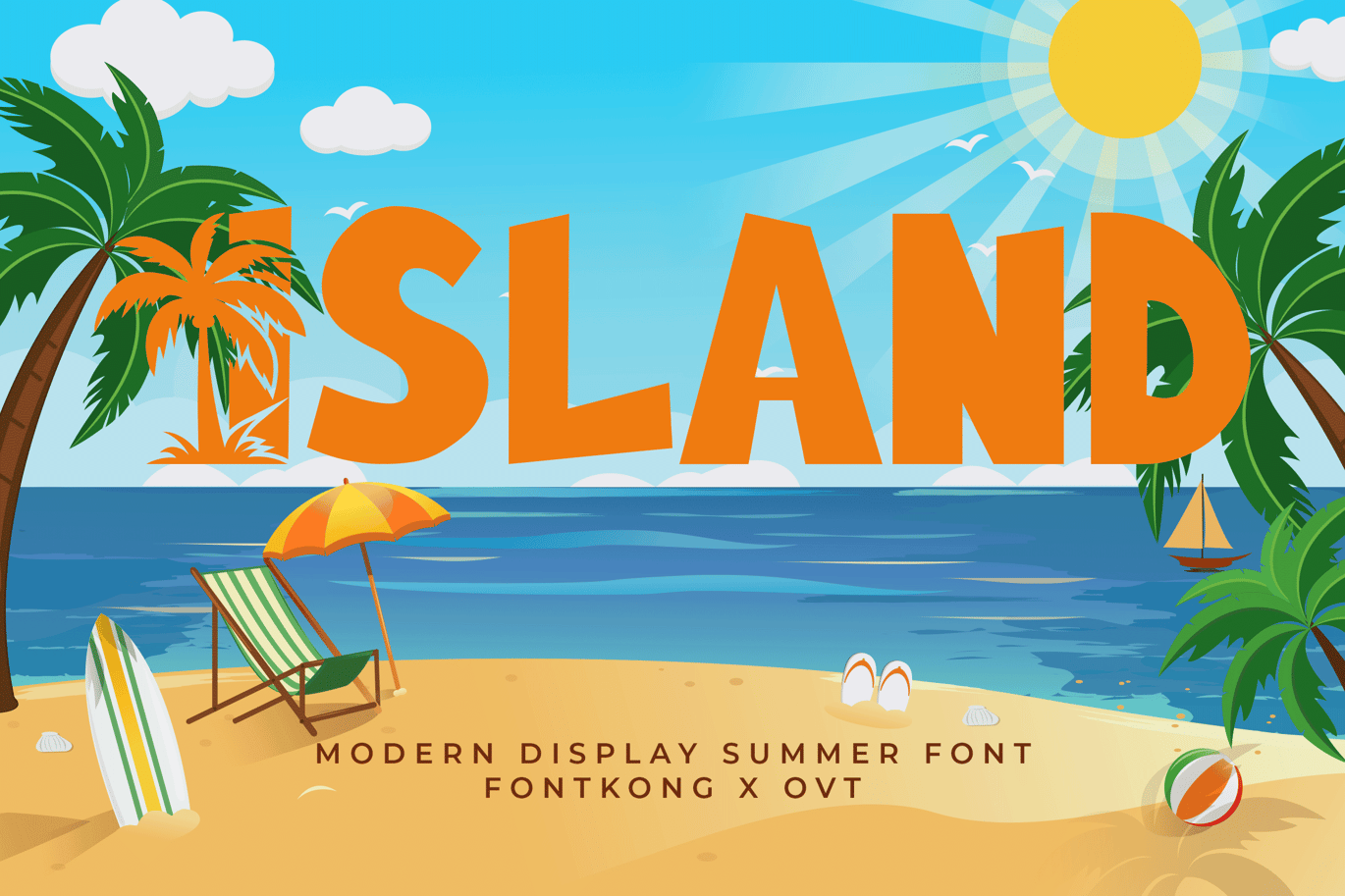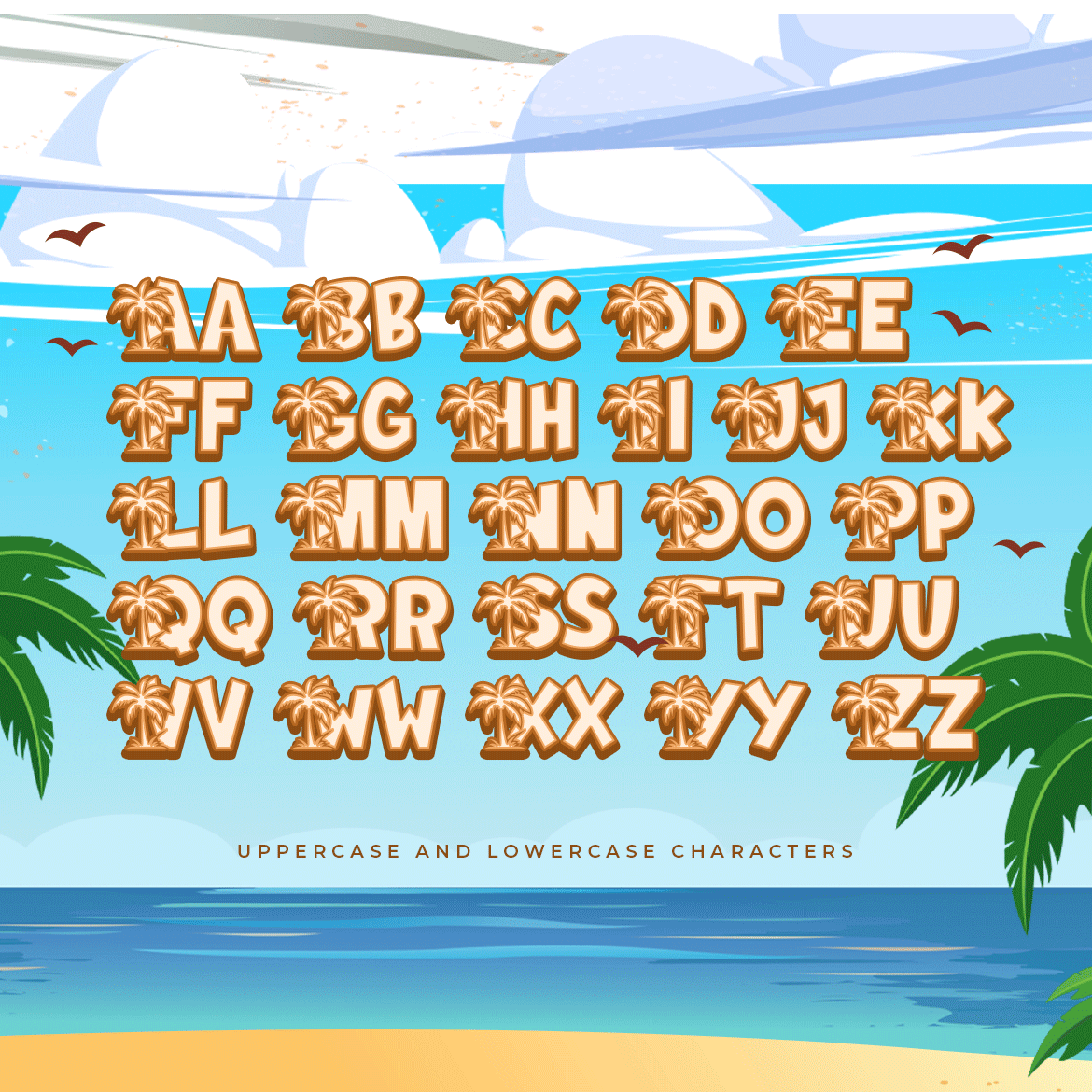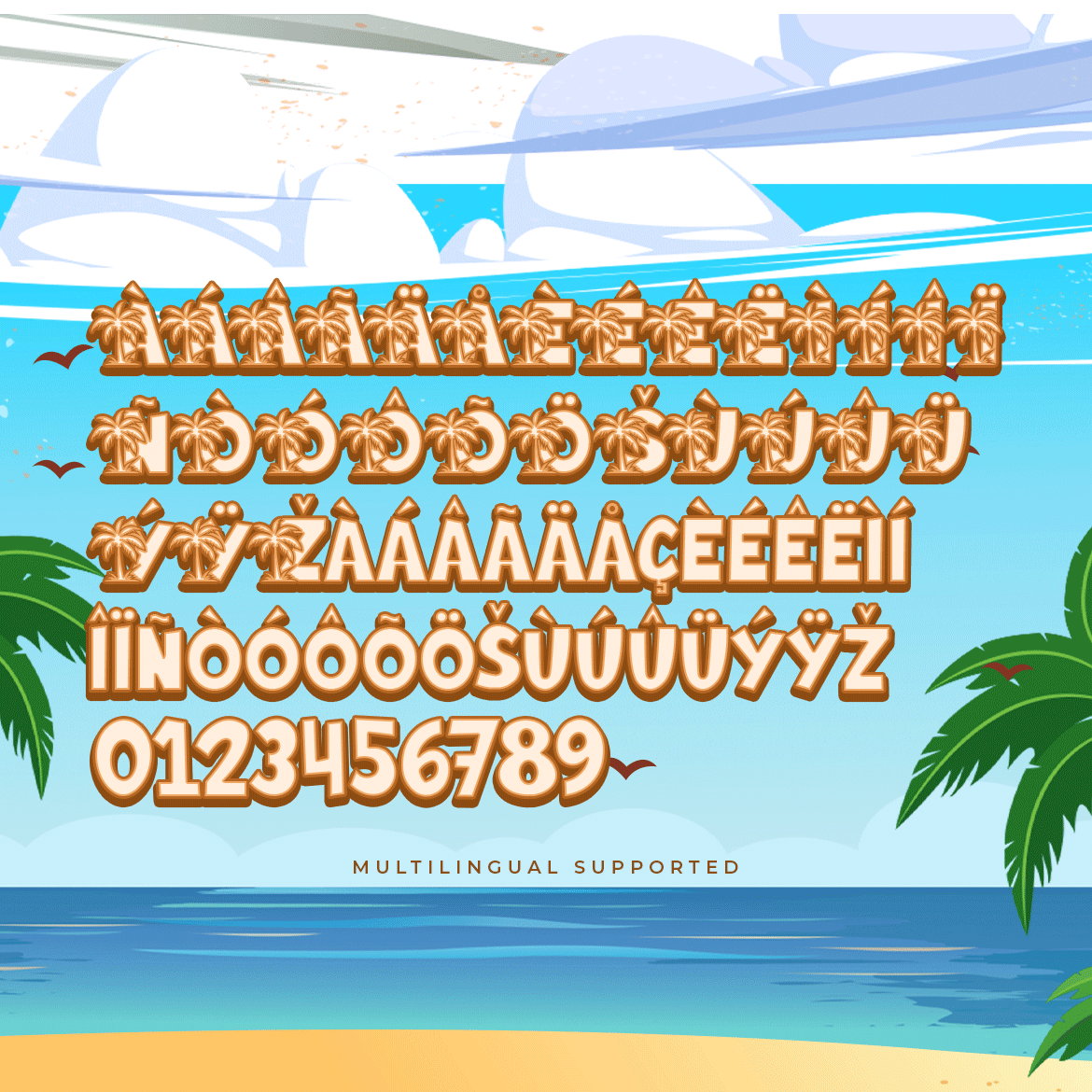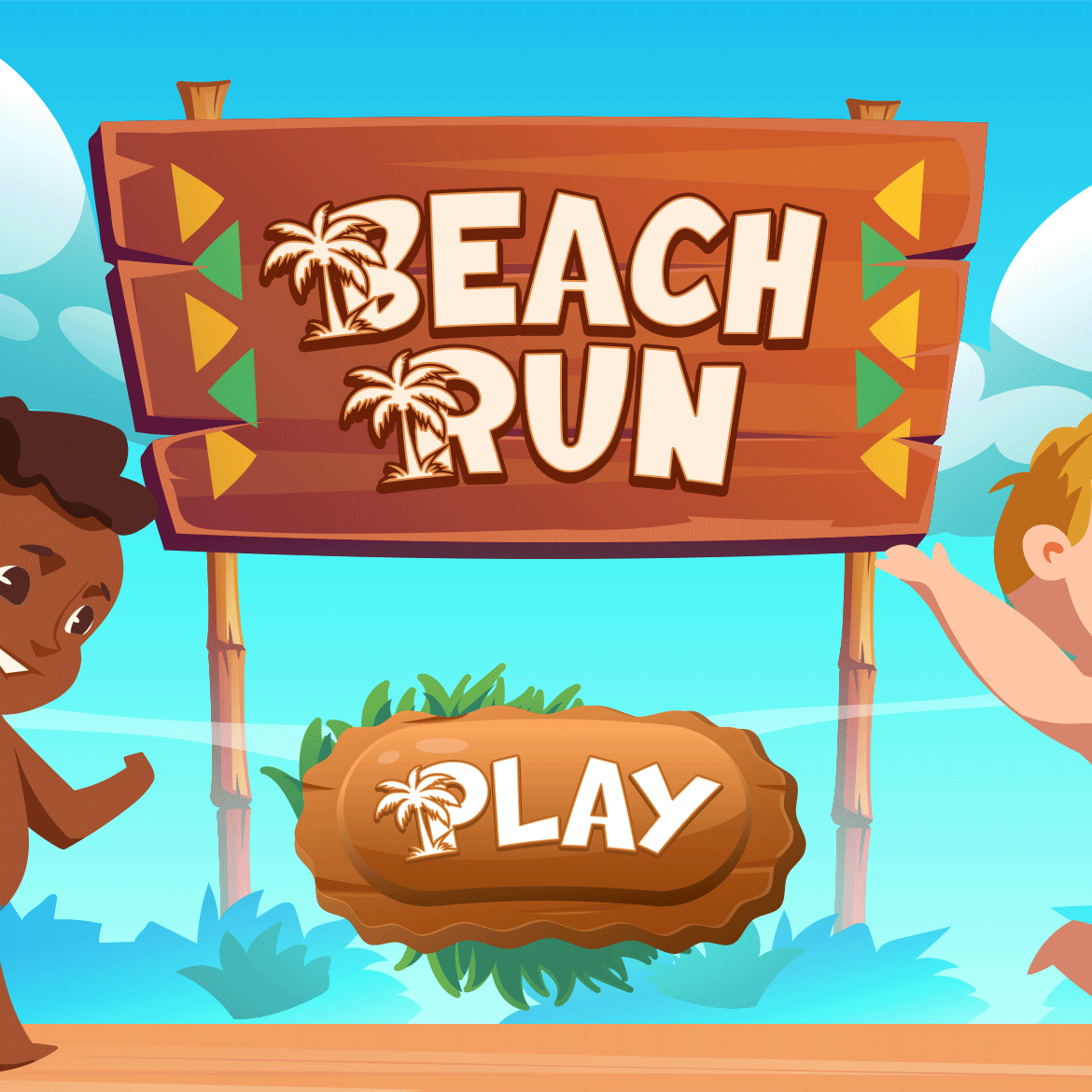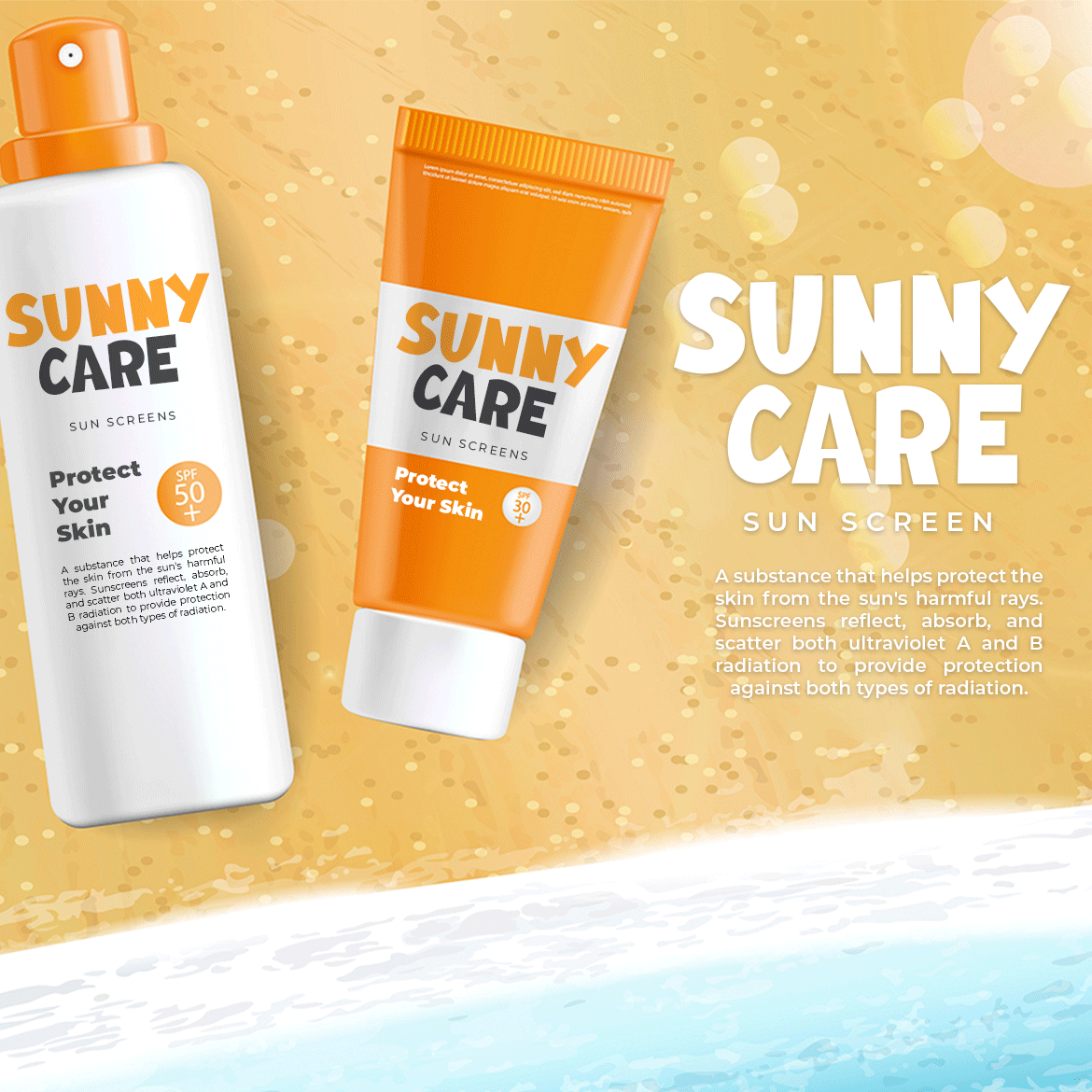
Island – Modern Display Summer Font
Introducing “Island,” a modern display summer font that radiates warmth and relaxation. Perfect for graphic designers, advertisers, and creatives seeking to capture the essence of summer, Island offers a bright and cheerful aesthetic that’s ideal for any sun-soaked design.
Ideal for beach party invitations, tropical branding, travel posters, summer event promotions, and vacation-themed projects, Island’s playful and vibrant characters evoke a sense of fun and leisure. Each letter is meticulously crafted to ensure readability while adding a touch of sunshine, making your designs lively and inviting.
The “Island” font includes a complete set of uppercase and lowercase letters, numbers, punctuation marks, and special characters. This versatile set allows for seamless integration into various design applications, from sunny branding to festive editorial layouts.
Bring the joy of summer to your designs with Island, the modern display font that delivers sun-kissed vibes in every letter.